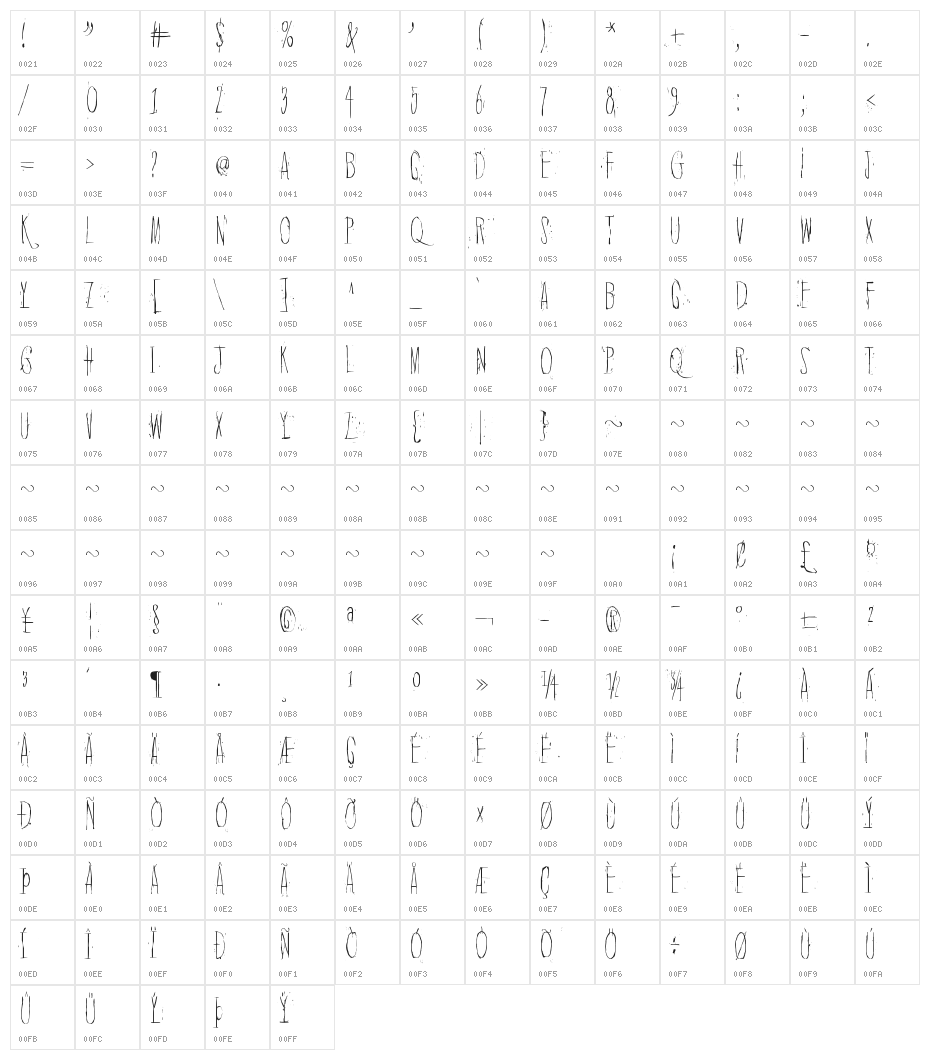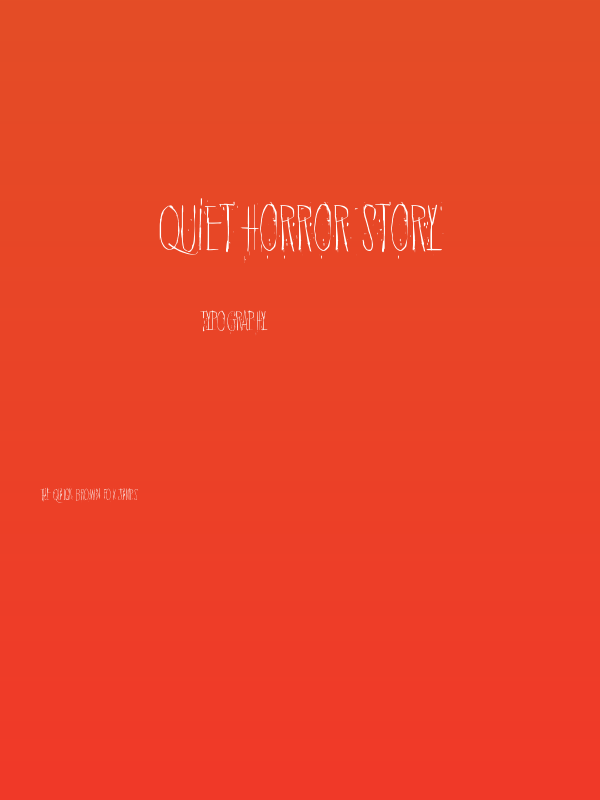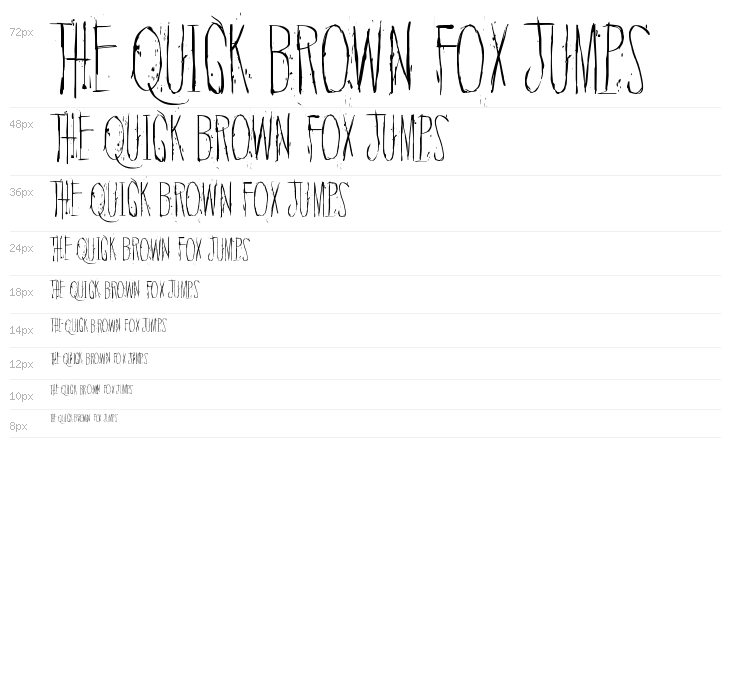
Quiet Horror Story Font
Quiet Horror Story Description
This font exudes a haunting and eerie vibe, perfect for creating a sense of unease. The letters are tall and slender, with irregular, jagged edges that give them a distressed appearance. The strokes are uneven, adding to the unsettling aesthetic. The characters appear as if they have been scratched or etched, enhancing the horror theme. This font is ideal for projects that require a spooky or mysterious atmosphere, such as horror movie posters, Halloween invitations, or ghost story book covers.